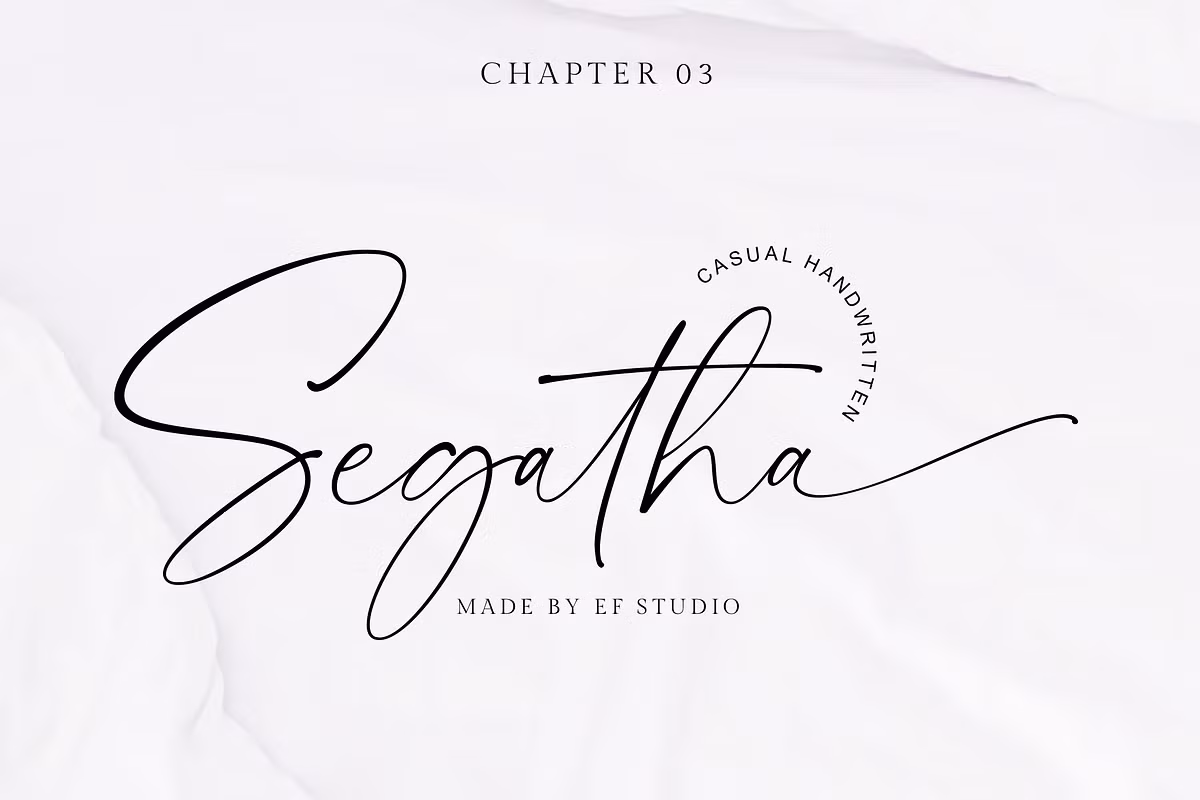
Segatha | Casual Handwritten Font Free Download
Segatha | Casual Handwritten Font Free Download is a relaxed, natural script typeface designed to capture the charm of casual handwritten notes. With its smooth, fluid strokes and friendly appearance, this font is perfect for projects that need a personal, approachable touch, such as invitations, greeting cards, branding, social media graphics, and DIY designs.
Whether you're working on a playful logo, crafting a fun event invitation, or adding a casual vibe to your project, Segatha brings warmth and authenticity to your typography.
Add a personal and inviting touch to your designs with Segatha | Casual Handwritten Font Free Download, and bring a handwritten aesthetic to your work. Perfect for designers who love easy-going, expressive fonts.